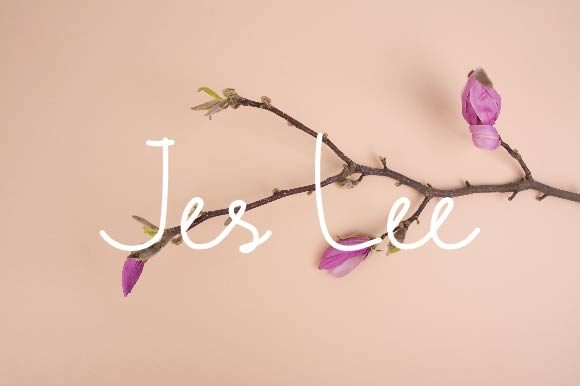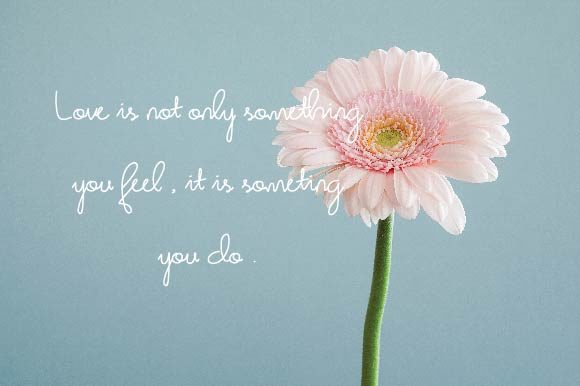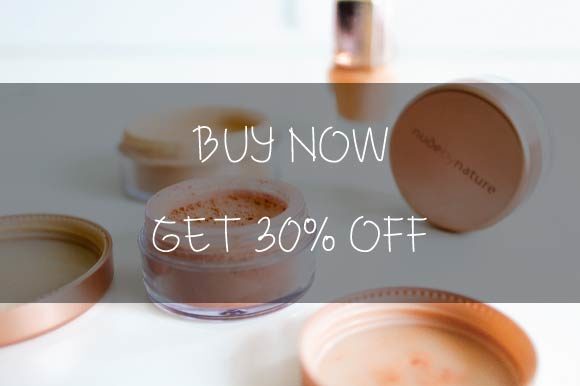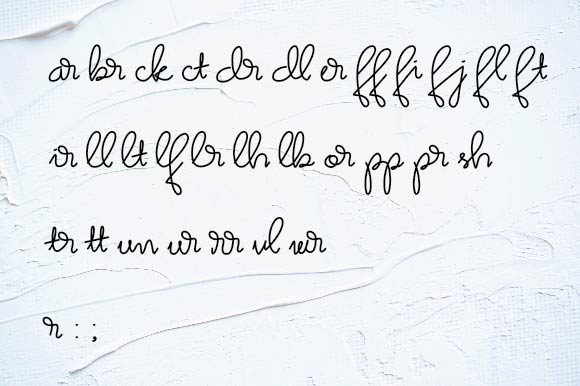
Jes Lee Font
About Jes Lee Font
Jes Lee is a light and elegant handwritten font with a contemporary feel. Get inspired by its delicate charm, and add a unique spark to any design project.